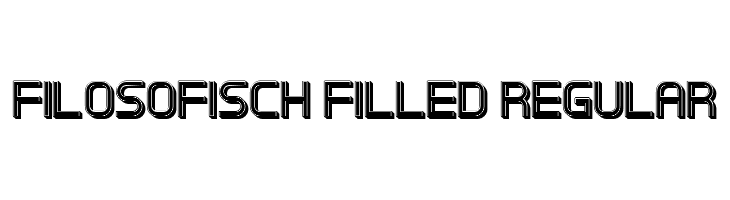
A bold, geometric font with a modern, three-dimensional style.
A bold, geometric font with a three-dimensional shadow effect.
A bold, decorative font with a three-dimensional effect and modern, industrial style.